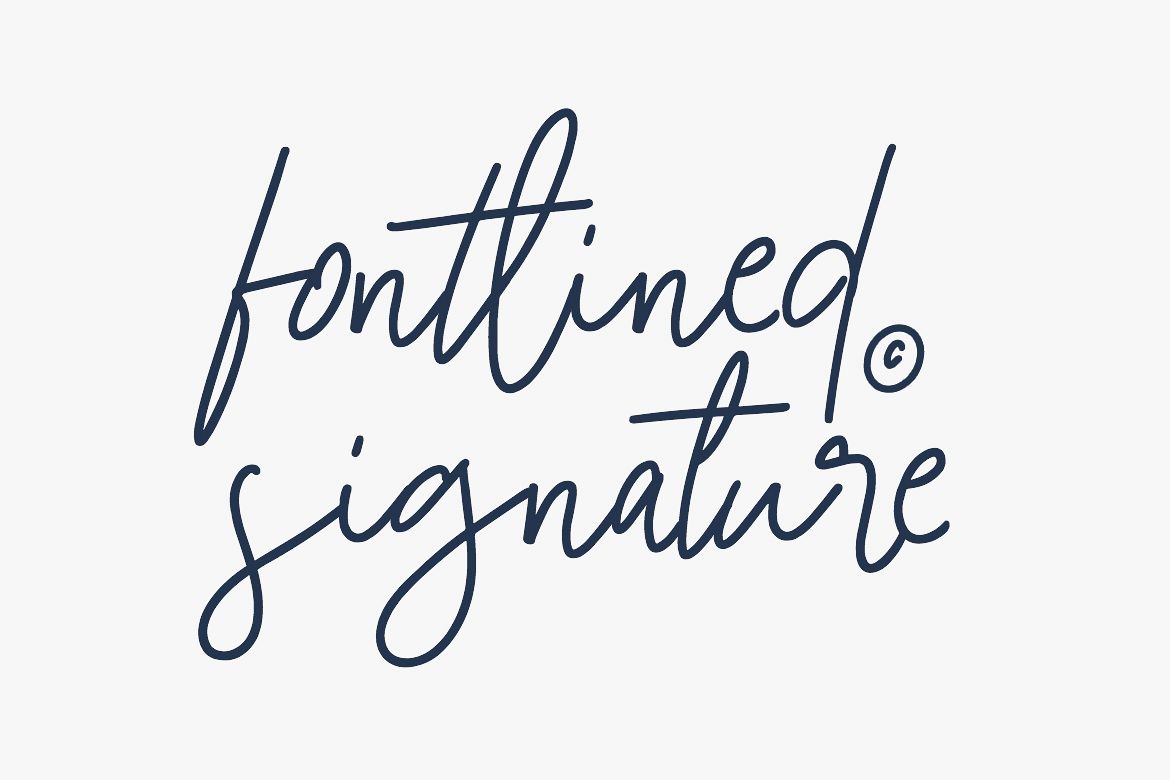
tailorella script
tailorella is a modern handwritten script font. it's a cool, classy, and fancy font to create a signature style logotypes, quotes, or even a wedding or greeting cards.
tailorella script example image 1